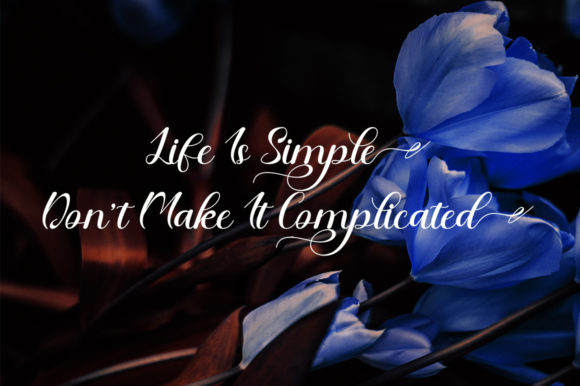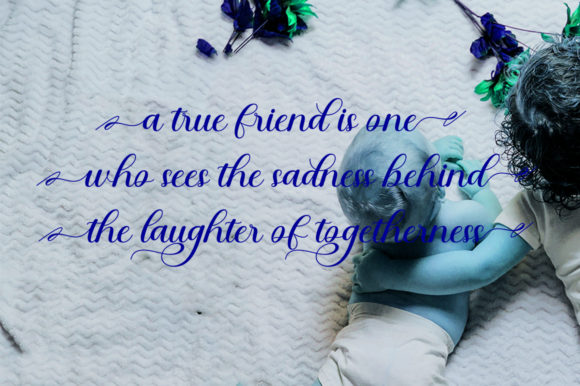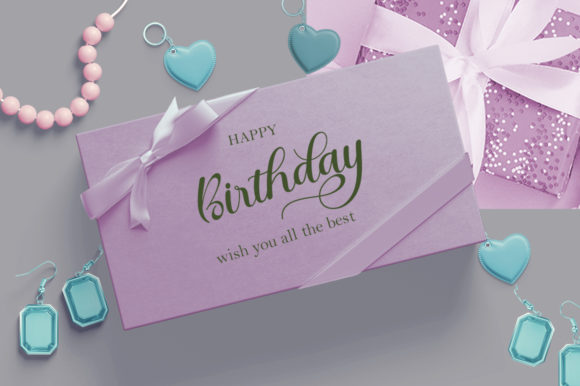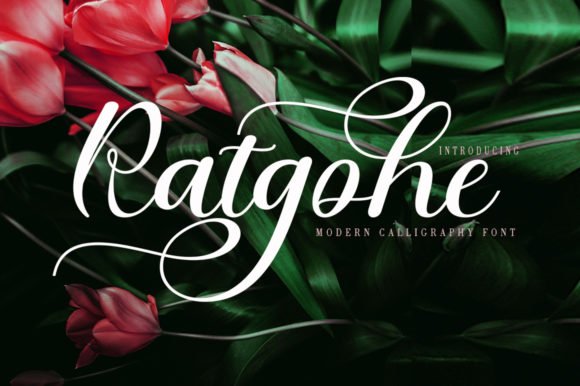
Introduction to Ratgohe Font
Ratgohe is a whimsical script font with a relaxed theme, featuring a lovely style.
No matter the topic, this font will be an incredibly asset to your fonts’ library, as it has the potential to elevate any creation This font is PUA encoded which means you can access all of the glyphs and swashes with ease.
Ratgohe Font offers exceptional quality and versatility, making it a valuable addition to your design toolkit. Whether you’re creating for personal projects or commercial use, Ratgohe Font delivers professional results.